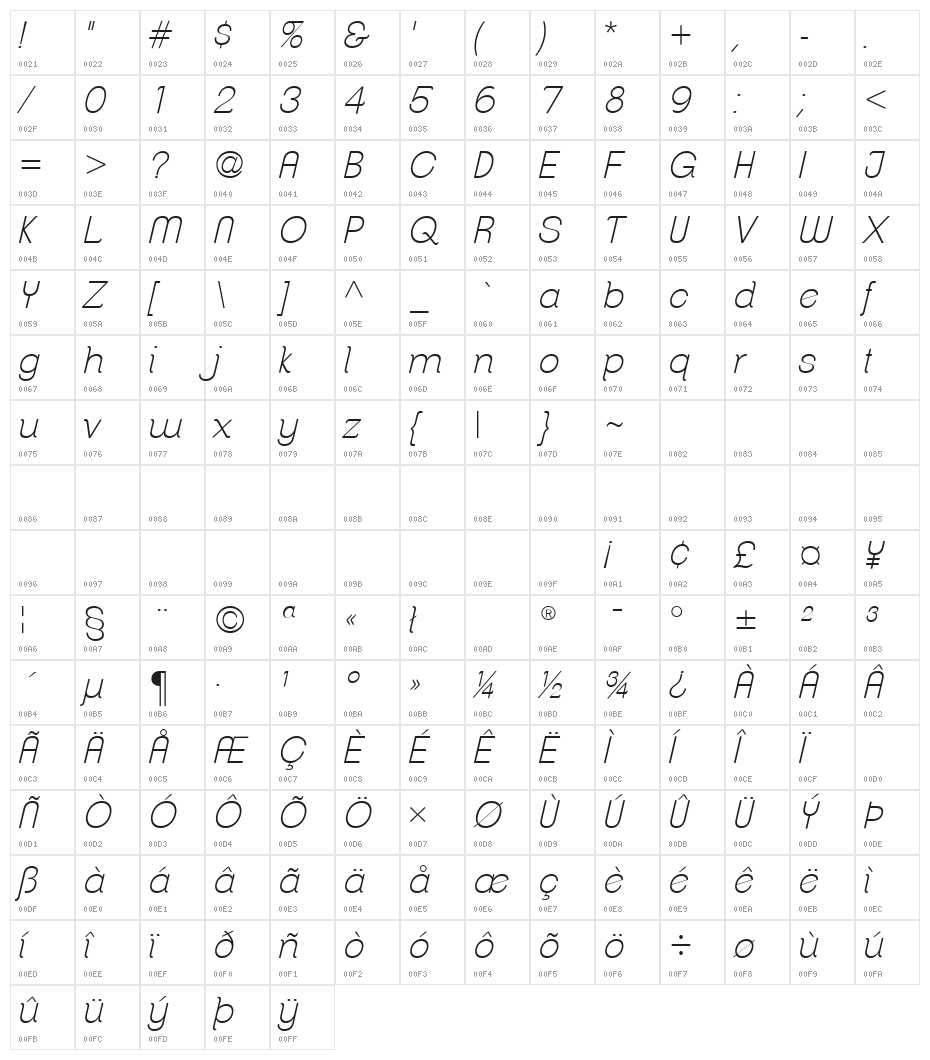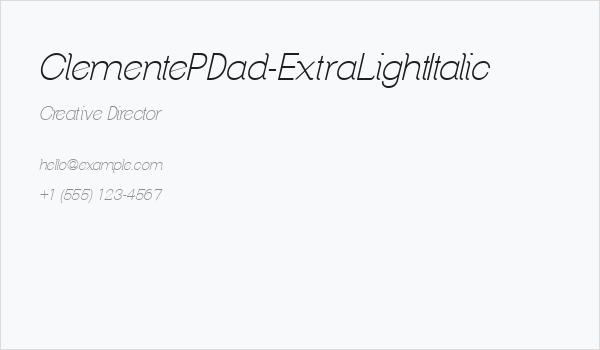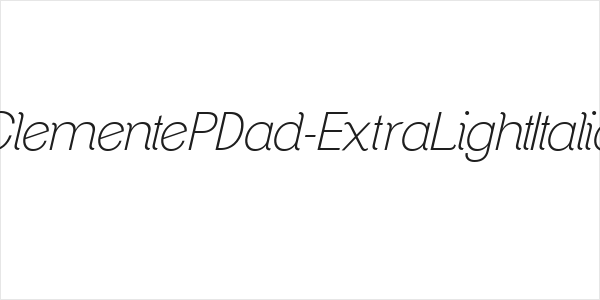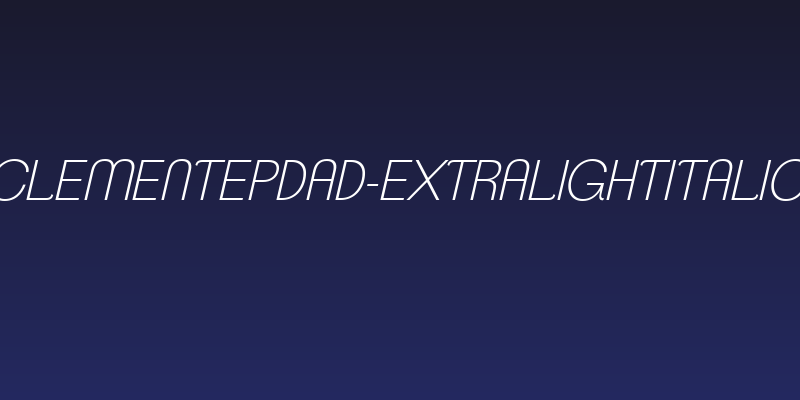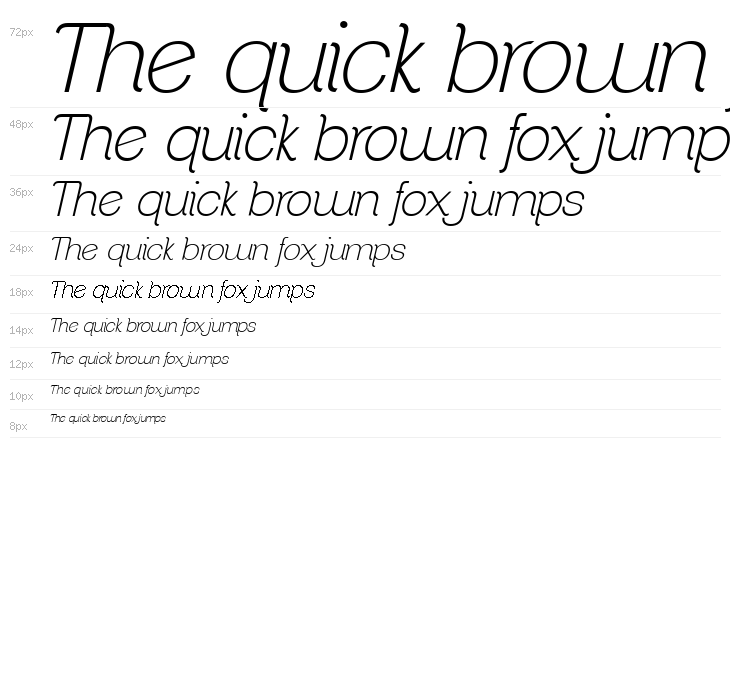
ClementePDad-ExtraLightItalic Font
ClementePDad-ExtraLightItalic Description
This font features a sleek and elegant design with a distinctly modern flair. The characters are crafted with an extra light weight, giving them a delicate and airy appearance. The italic style adds a sense of motion and sophistication, making it ideal for creative and stylish applications. The font maintains a consistent stroke width, contributing to its clean and refined look. Its smooth curves and gentle slant create a harmonious flow, enhancing readability while maintaining an artistic touch. The character set includes both uppercase and lowercase letters, numerals, and a variety of special characters, offering versatility for various design needs.
| Proposed Projects | Ideal for fashion magazines, luxury branding, elegant invitations, and modern web design. |